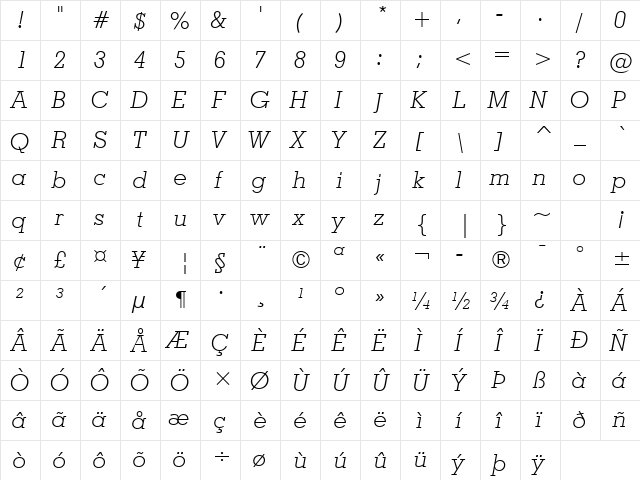
GeoSlab703 Lt BT Light Italic Font Preview
Design Context for GeoSlab703 Lt BT Typeface
GeoSlab703 Lt BT combines the readability of serif typography with the visual weight of a slab construction, resulting in a typeface that feels both authoritative and approachable. The dynamic lean of this cut emphasises speed and emphasis in any layout. Its slender proportions lend an understated elegance to any composition.
Suited to magazines, political campaign materials, bold packaging, and any setting where authority matters.
Pro Tip: Use GeoSlab703 Lt BT for headlines and subheadings where its slab serifs can make an impression. It also holds up well in mid-size body copy thanks to its sturdy construction.